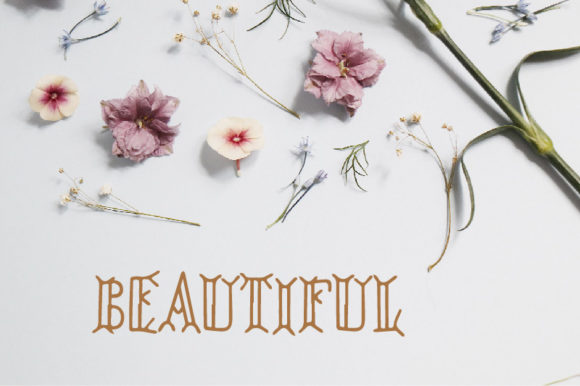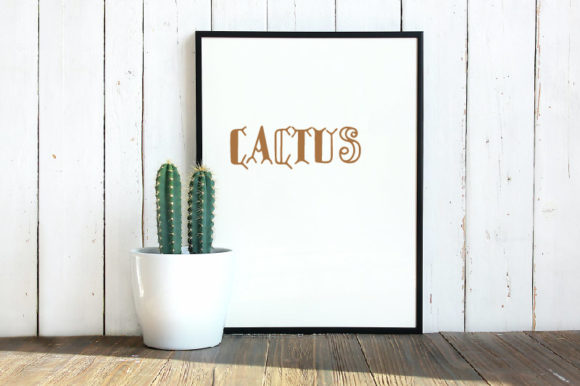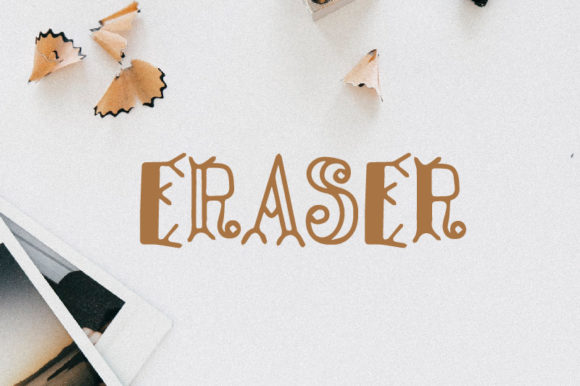
Cetweenim Font: Elevate Your Designs with a Touch of Whimsy
Are you tired of using the same old fonts in your designs? Look no further than Cetweenim, an original and awesome font that’s sure to make your creative projects stand out. This enchanting display font is perfect for designers and crafters looking to add a touch of playfulness and uniqueness to their work.
The Unique Charm of Cetweenim
Cetweenim is more than just a font – it’s an experience. Its unique playfulness is infectious, making it the perfect choice for designers who want to create something truly special. Whether you’re working on a spring-themed project or just want to add some visual interest to your design, Cetweenim is the perfect choice.
Bring Your Designs to Life with Cetweenim
With Cetweenim, you can turn any creative idea into a true standout. Its enchanting display font is sure to capture the attention of your audience and leave a lasting impression. Whether you’re designing a logo, brochure, or social media graphic, Cetweenim is the perfect choice.
Perfect for Spring Projects
As the seasons change and spring arrives, Cetweenim is the perfect font to brighten up your designs. Its fresh and playful vibe is perfect for spring-themed projects, from Easter egg designs to summer-themed posters. With Cetweenim, you can add a touch of whimsy and fun to your designs and make them truly unforgettable.
What Makes Cetweenim So Special?
So, what sets Cetweenim apart from other fonts? Here are just a few things that make it truly special:
- Unique and Original: Cetweenim is an original font that’s unlike anything you’ve seen before. Its unique playfulness and charm make it a true standout.
- Enchanting Display Font: Cetweenim’s display font is truly enchanting, making it perfect for headlines, titles, and other display text.
- Playful and Whimsical: Cetweenim has a playful and whimsical vibe that’s perfect for designers who want to add some fun and personality to their designs.
- Perfect for Spring Projects: Cetweenim is the perfect font for spring-themed projects, from Easter egg designs to summer-themed posters.
Tips for Using Cetweenim in Your Designs
Here are a few tips for using Cetweenim in your designs:
- Use it as a Headline Font: Cetweenim is perfect for headlines and titles, where its unique playfulness can really shine.
- Pair it with Other Fonts: Cetweenim pairs well with other fonts, so don’t be afraid to experiment with different combinations.
- Use it in Spring-themed Projects: Cetweenim is perfect for spring-themed projects, from Easter egg designs to summer-themed posters.
- Experiment with Different Colors: Cetweenim looks great in a variety of colors, so don’t be afraid to experiment and find the perfect hue for your design.
Cetweenim is an original and awesome font that’s sure to elevate your designs and make them truly unforgettable. Its unique playfulness and enchanting display font make it perfect for designers and crafters looking to add a touch of whimsy and fun to their work. Whether you’re working on a spring-themed project or just want to add some visual interest to your design, Cetweenim is the perfect choice. So why wait? Download Cetweenim today and start creating something truly special!